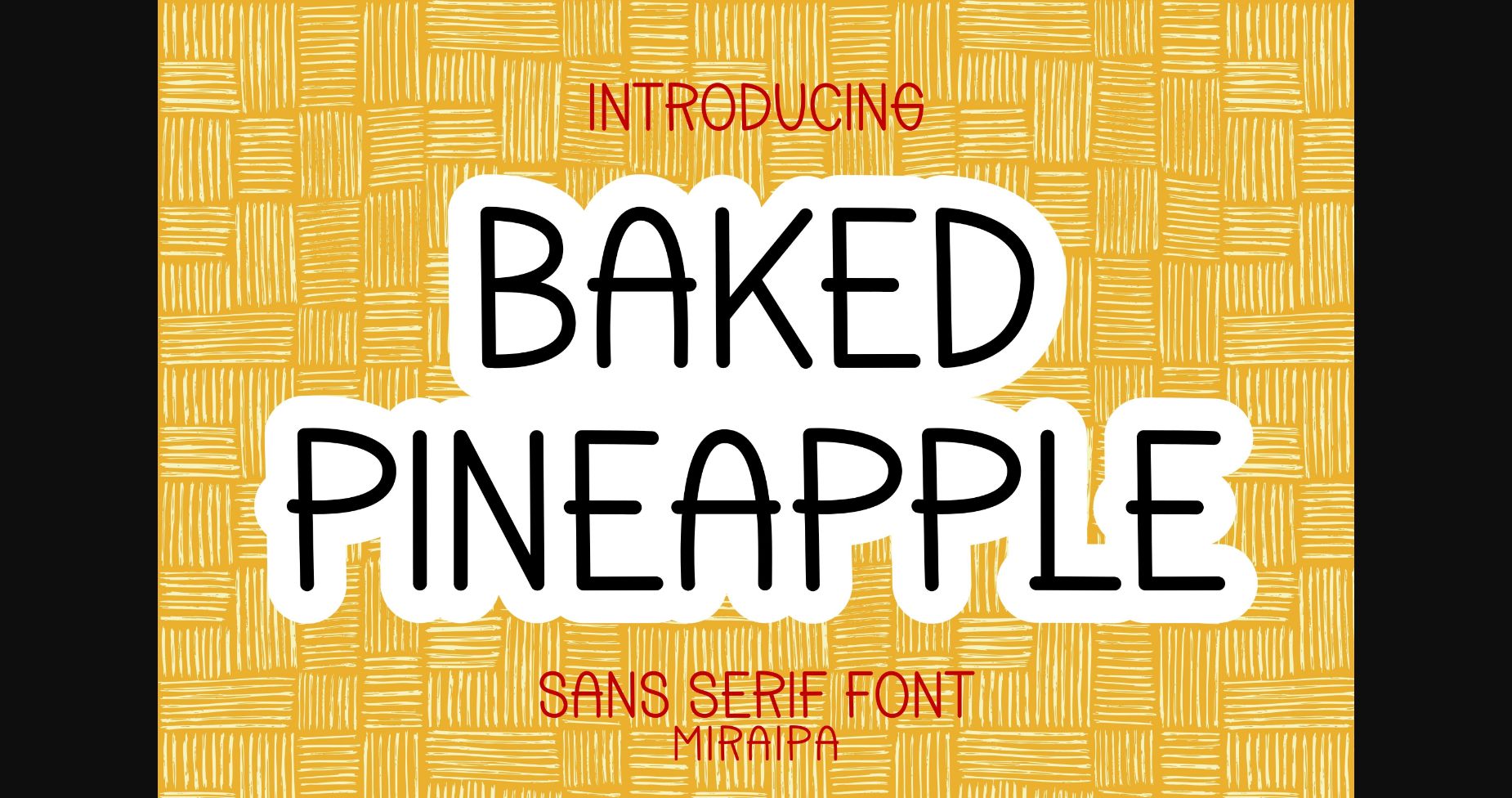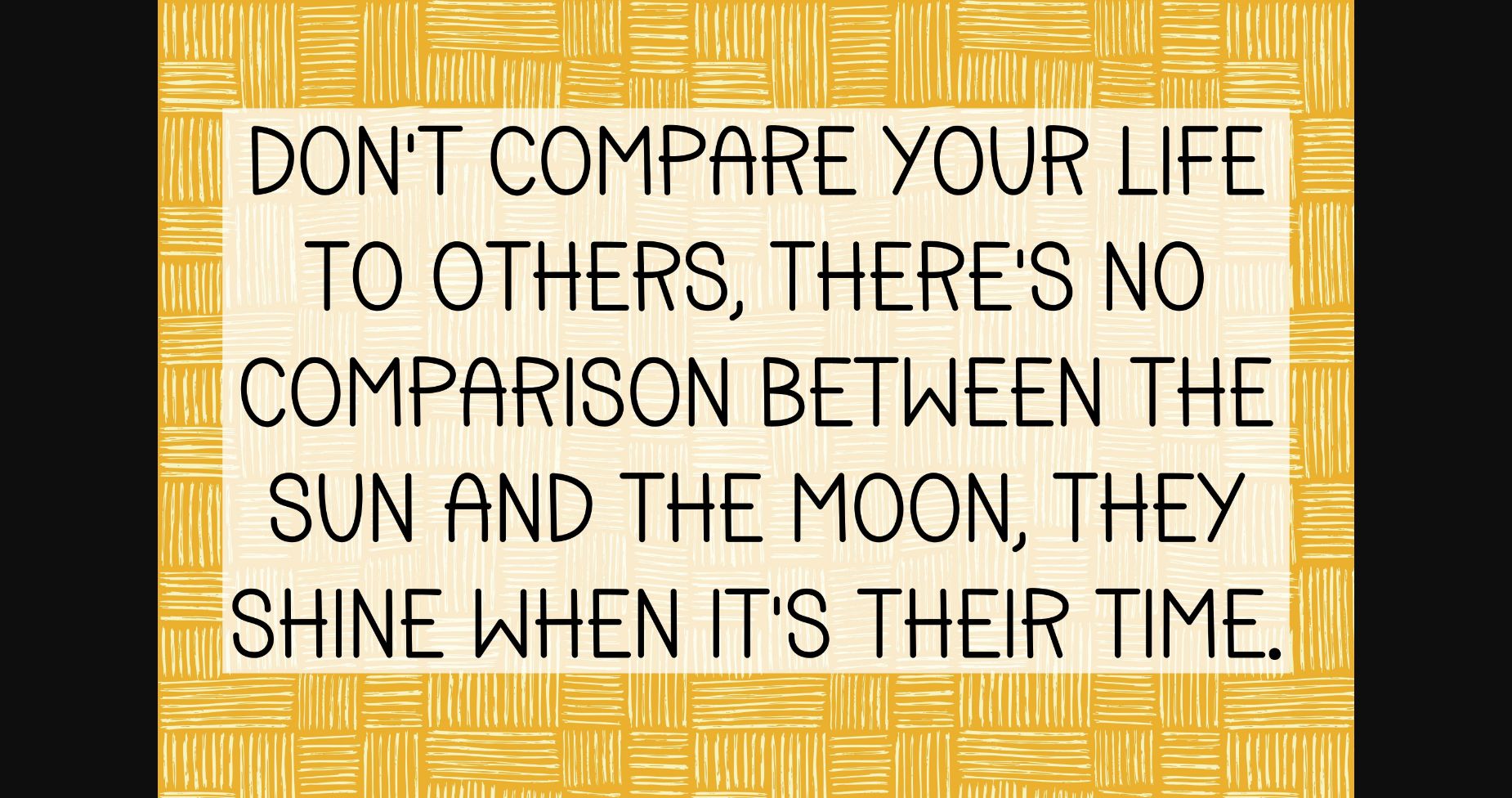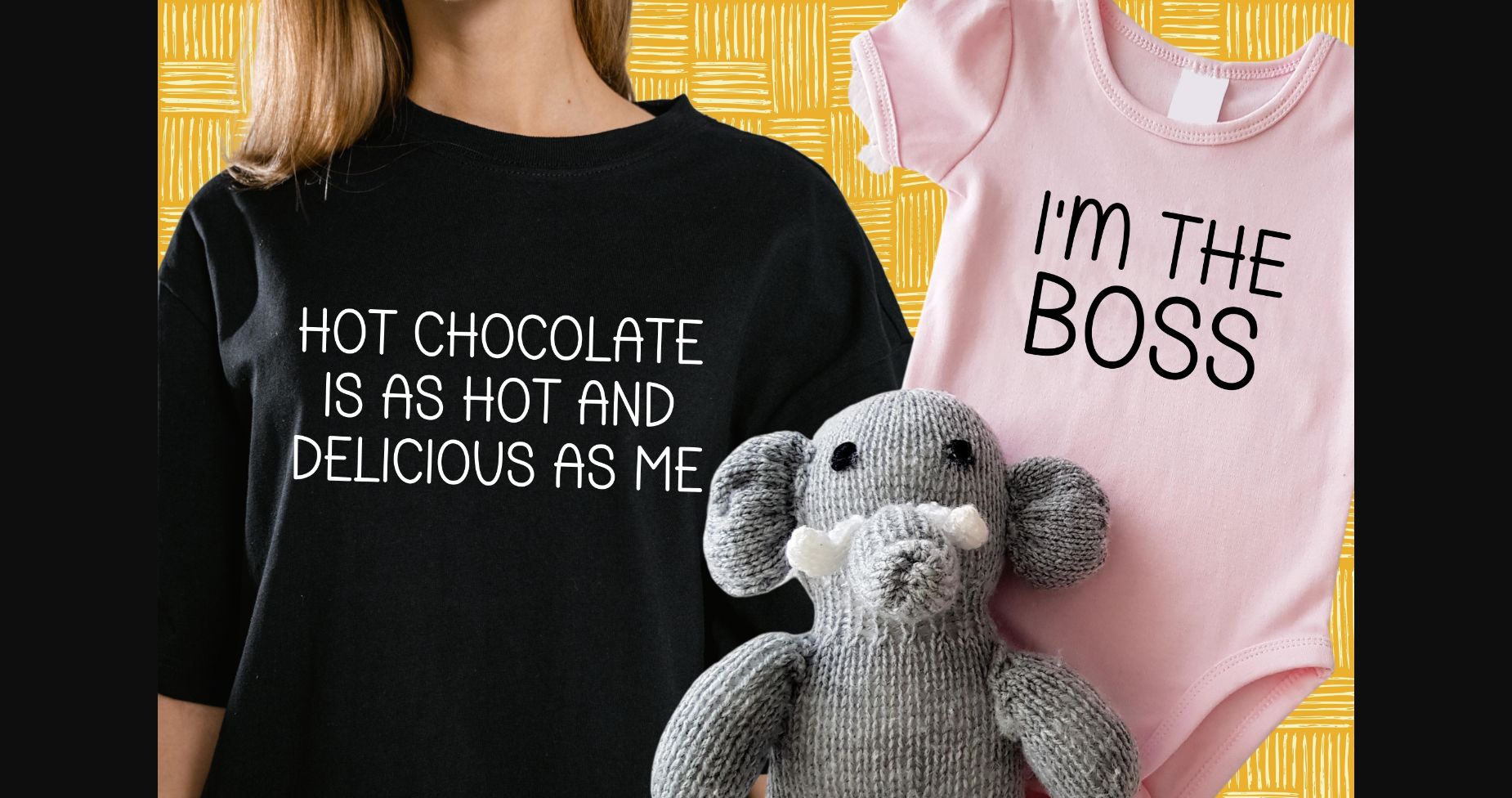
About Baked Pineapple Font
Baked Pineapple is a cute and charming handwritten sans serif font that brings a playful and friendly vibe to your designs. With its rounded letterforms and whimsical details, it adds a touch of warmth and personality. Whether used for branding, invitations, or social media graphics, Baked Pineapple adds a delightful sweetness to any project.